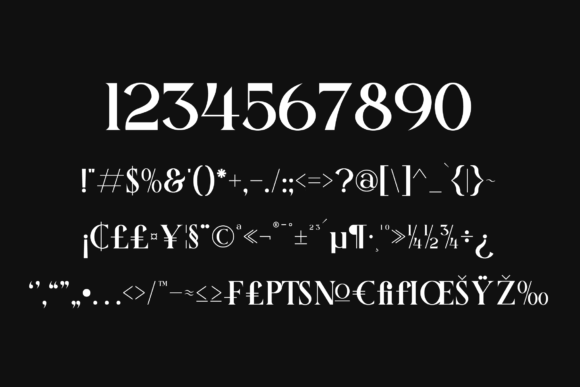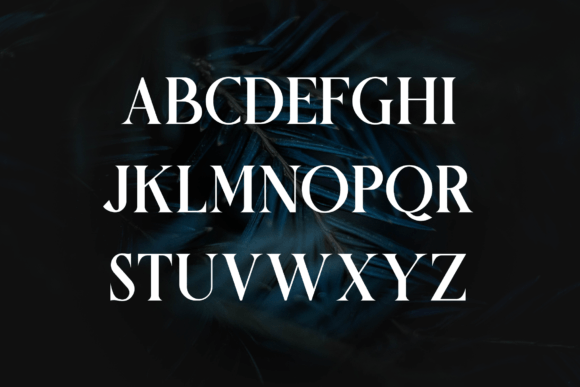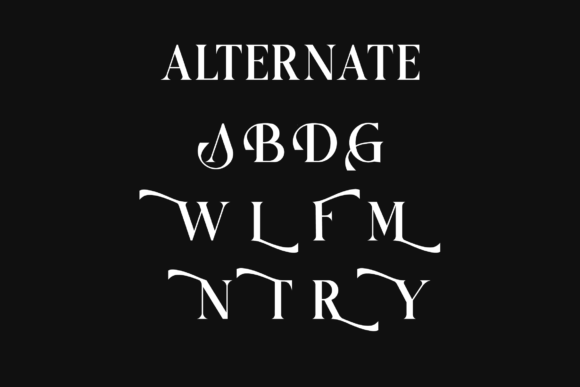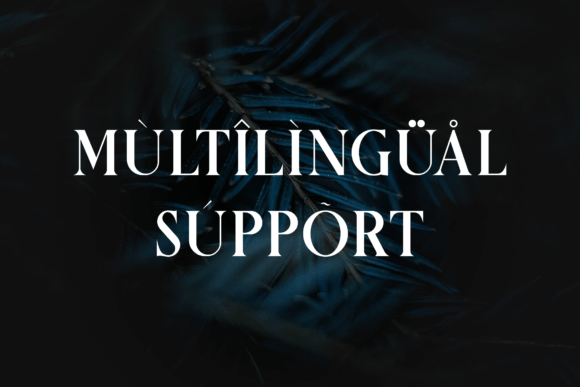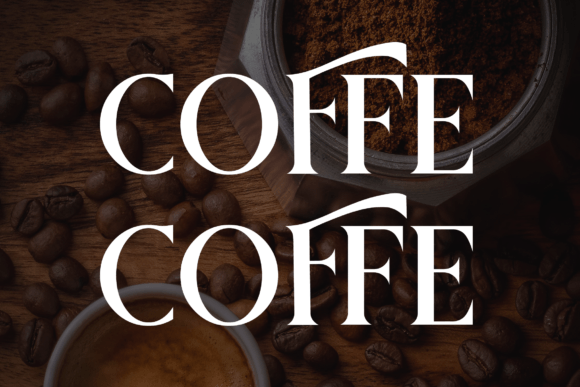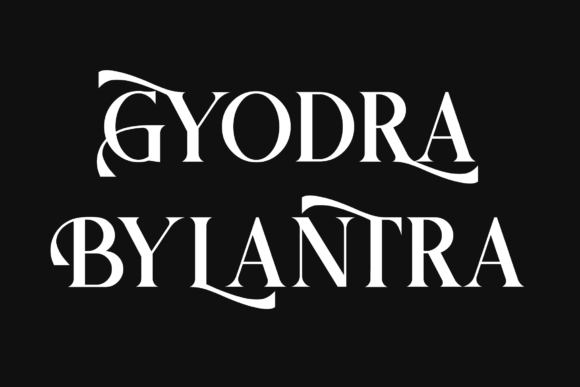
Introduction to Griena Font
As designers, we’ve all been there – staring at a blank canvas, trying to conjure up the perfect font to elevate our creative project. It’s that moment of inspiration when everything falls into place, and the perfect typography is born. For those seeking a high-quality, elegant serif font that exudes sophistication and modern style, look no further than the Griena Font.
This versatile typeface is a treasure trove for designers, offering a unique look that’s perfect for a wide range of applications, from luxurious logos to magazine covers and book titles. With its sleek lines and refined aesthetic, Griena Font is an ideal design resource for creatives looking to add a touch of elegance to their work. Whether you’re working on a high-end fashion brand or a quote design, this font is sure to impress.
Key Features of Griena Font
- High-quality design resource for creative projects, perfect for digital art and graphics.
- Features a transparent background, allowing for easy customization and layering in design projects.
- Includes a range of characters, including uppercase and lowercase letters, numbers, and special symbols.
- Designed with a unique, modern aesthetic, making it ideal for contemporary design projects.
Honest Review: Griena Font
I recently came across the Griena Font and I’m excited to share my honest review with you. As a designer, I’m always on the lookout for high-quality design resources that can elevate my creative projects.
Here’s what works well about the Griena Font:
- ✨ Its modern and sleek design makes it perfect for a variety of projects, from branding to digital media.
- ✨ The font is highly customizable, allowing you to adjust the weight, style, and even the transparency of the background.
- ✨ The font is also highly versatile, working well in both print and digital formats.
- ⚠️ The font may not be suitable for all types of projects, particularly those that require a more traditional or formal look.
- ⚠️ Some users may find the font to be a bit too bold or overpowering, depending on the context.
Overall, I’m impressed with the Griena Font and I think it’s a great addition to any designer’s toolkit. Its high quality and versatility make it a great option for a wide range of creative projects.
The Griena Font is a high-quality design resource that can elevate your creative project. With a transparent background, this versatile font is perfect for designers looking to add a unique touch to their work.
Tips for Getting the Most Out of Griena Font
To get the most out of the Griena Font, experiment with different font sizes, colors, and combinations to find the perfect look for your project.
The Griena Font is ideal for use in a variety of design projects, including logos, branding materials, and digital graphics.
Alternatives to Griena Font
Great Vibes Font is a high-quality, elegant script font suitable for creative projects requiring a touch of sophistication. It features a transparent background, making it ideal for overlaying on images or other design elements. Great Vibes Font is perfect for wedding invitations, branding, or any project where a refined, handwritten feel is desired.
When compared to Griena Font, Great Vibes Font has a more refined and elegant appearance, while Griena Font has a more playful and casual tone.
Carolyna Pro Font is a modern, sans-serif font ideal for high-end design projects. It features a clean and minimalist design, making it perfect for corporate branding, luxury products, or any project requiring a sense of sophistication and elegance.
Does the Griena Font support transparent backgrounds?
Yes, the Griena Font supports transparent backgrounds, making it ideal for use in digital media, such as social media graphics, website design, and video editing. The font’s transparent background allows for seamless integration with other design elements.